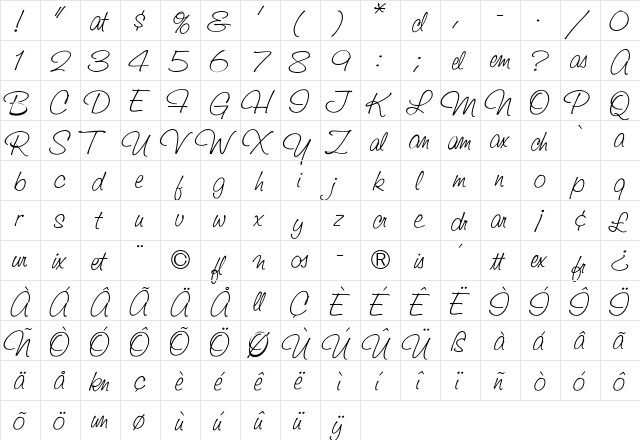
TFSaginaw Medium Font Preview
TFSaginaw Medium
TFSaginaw Medium Font Details
Design Context for TFSaginaw Typeface
TFSaginaw is a composed and adaptable typeface that performs quietly and consistently across a wide range of design contexts.